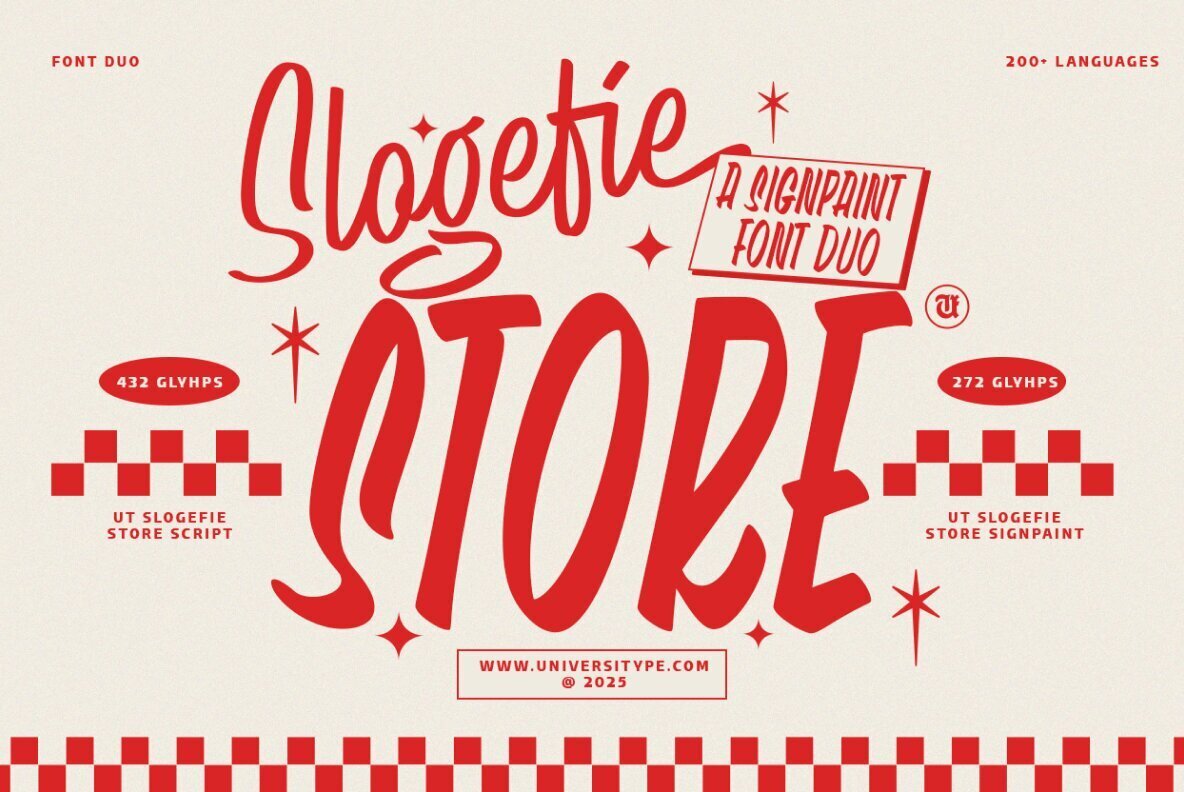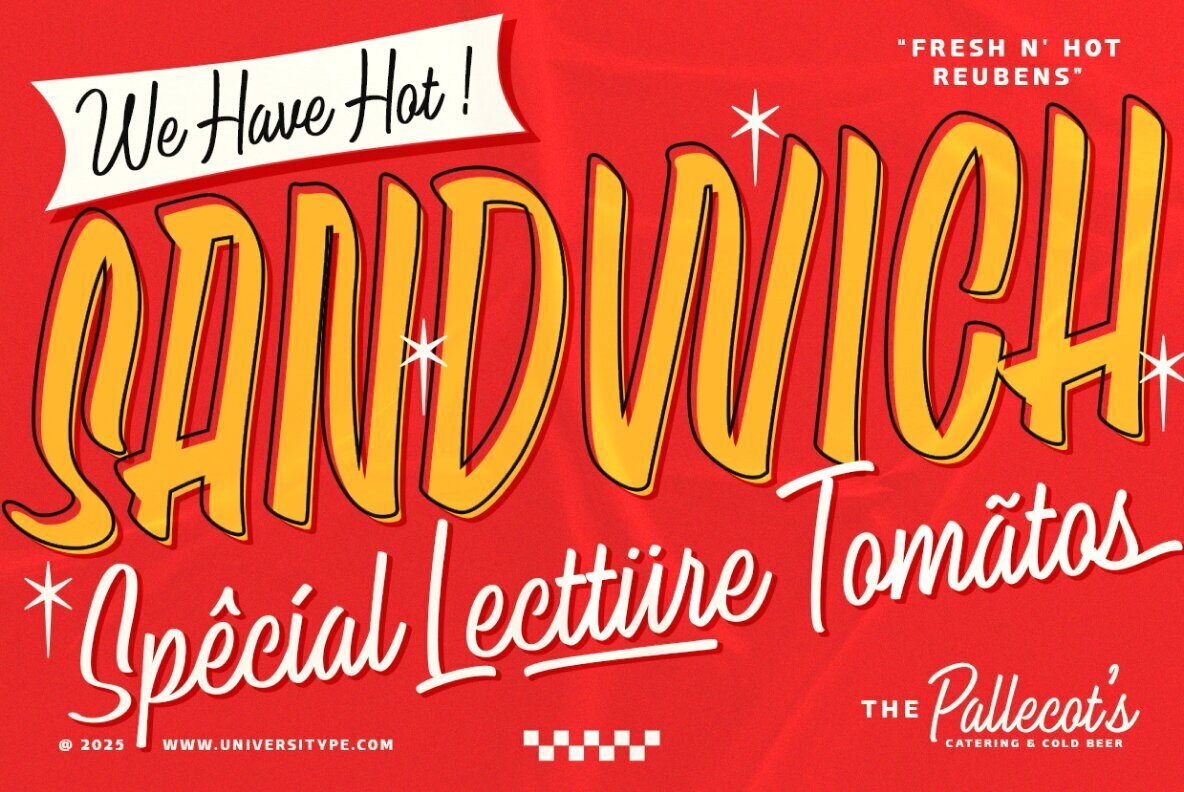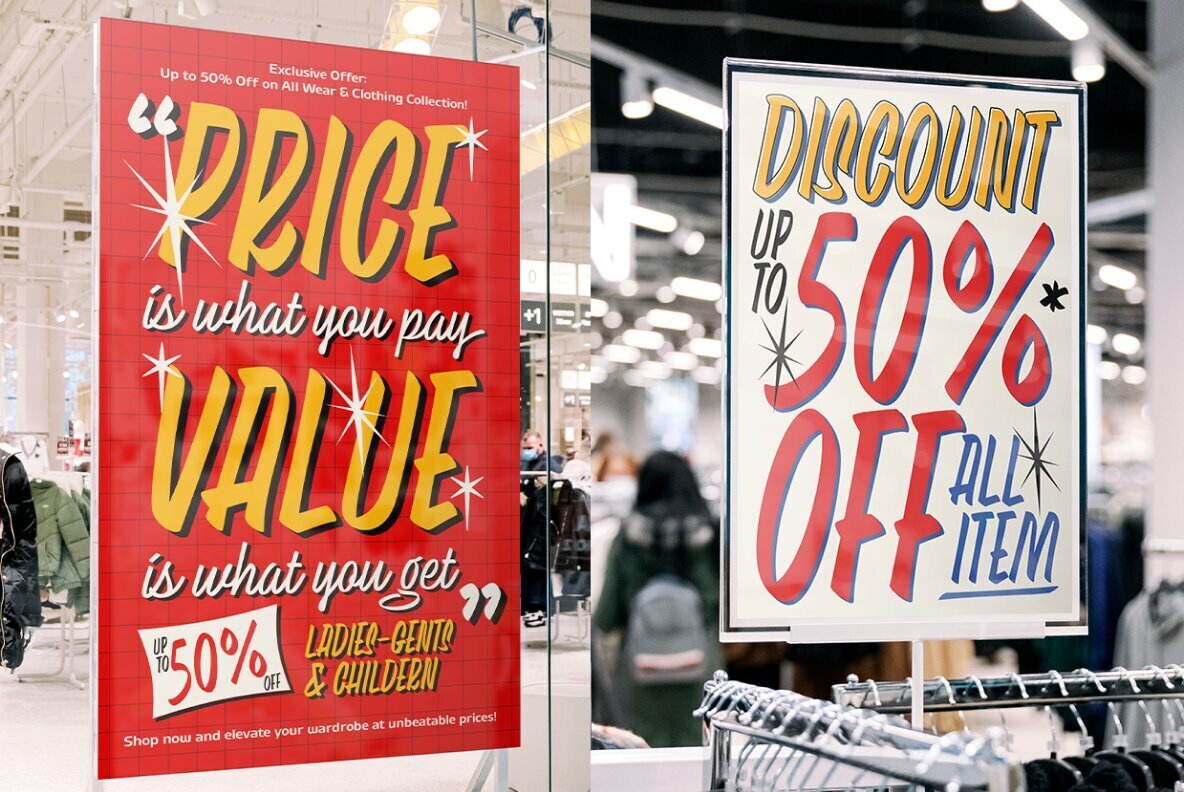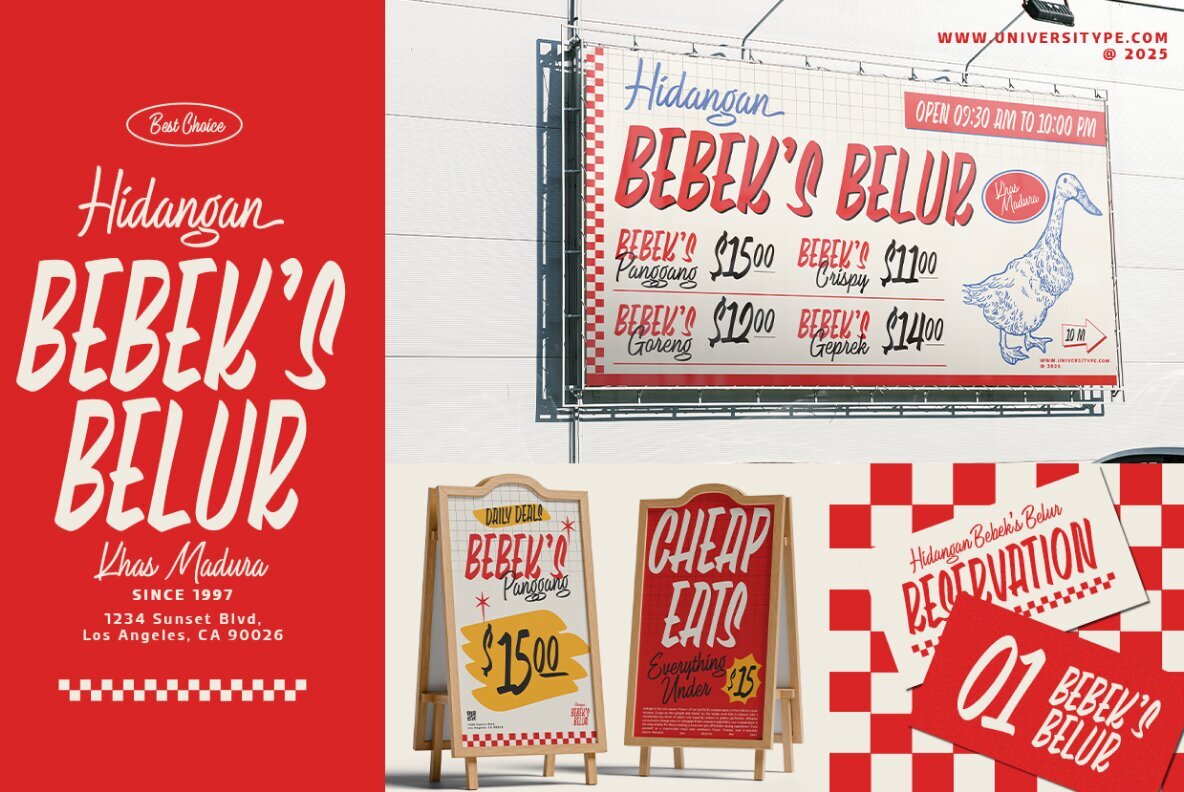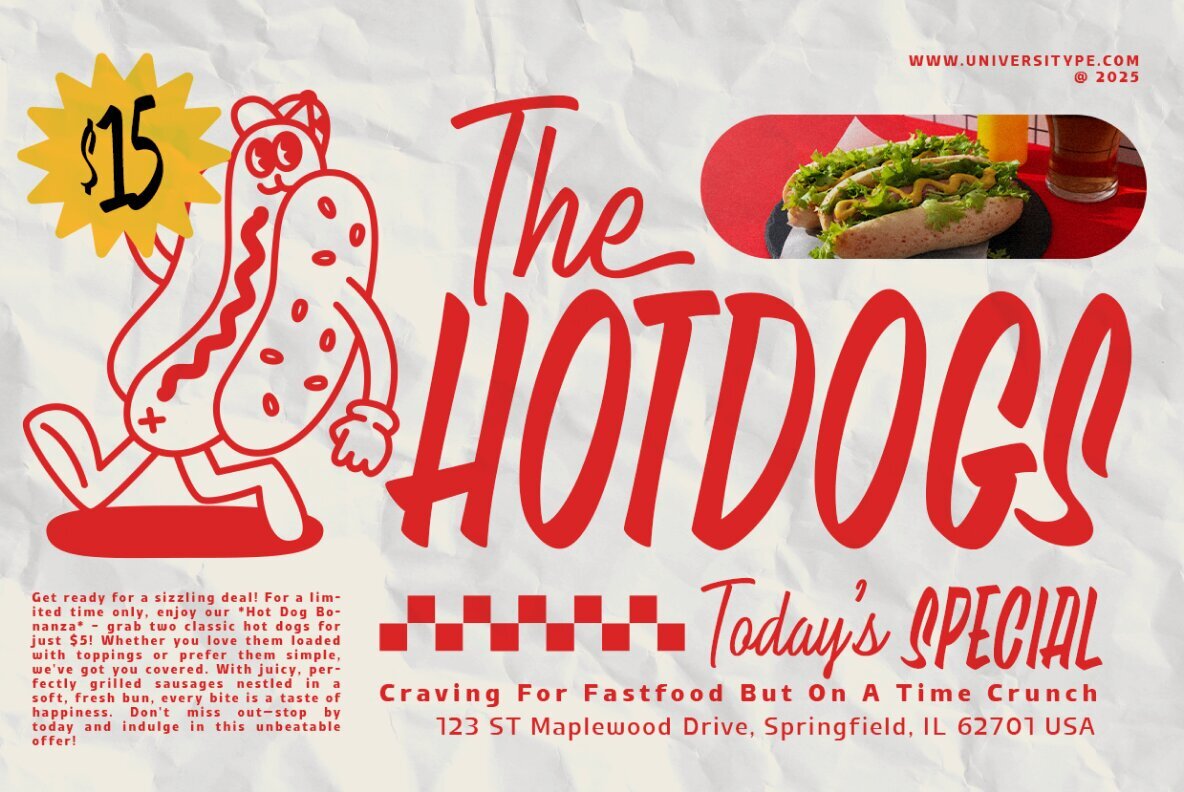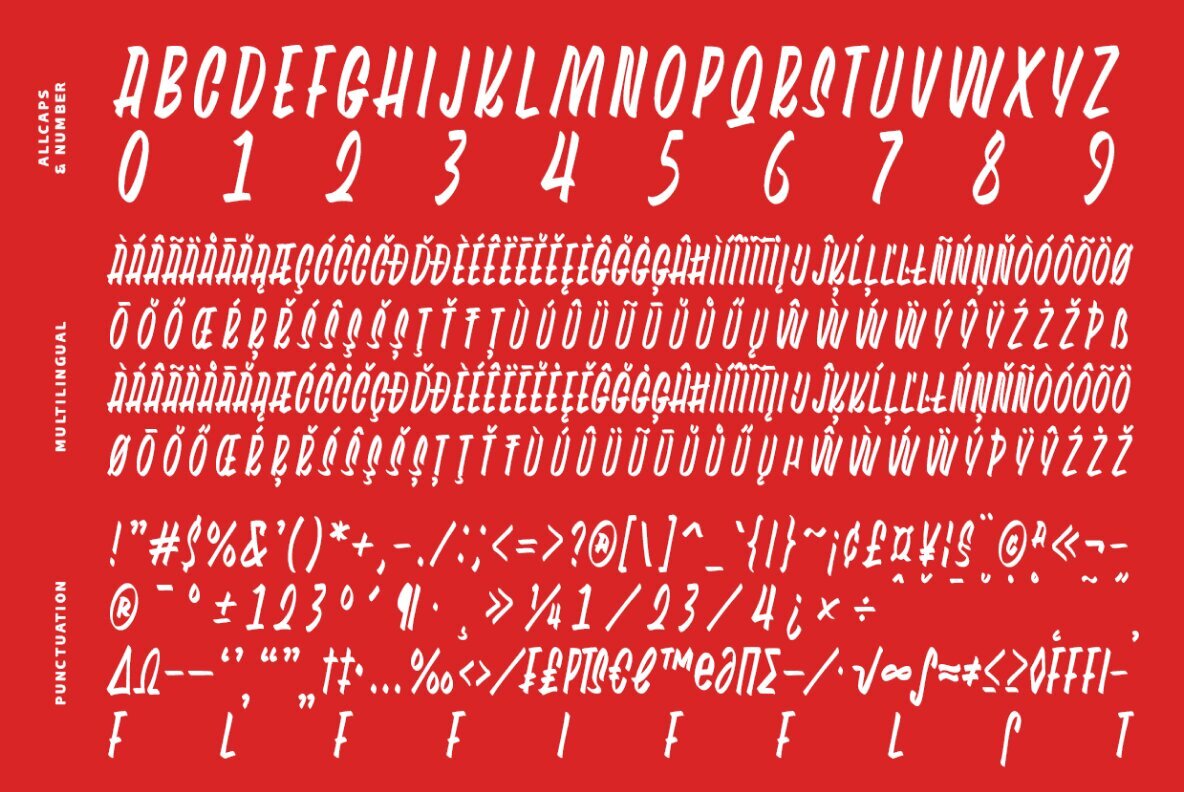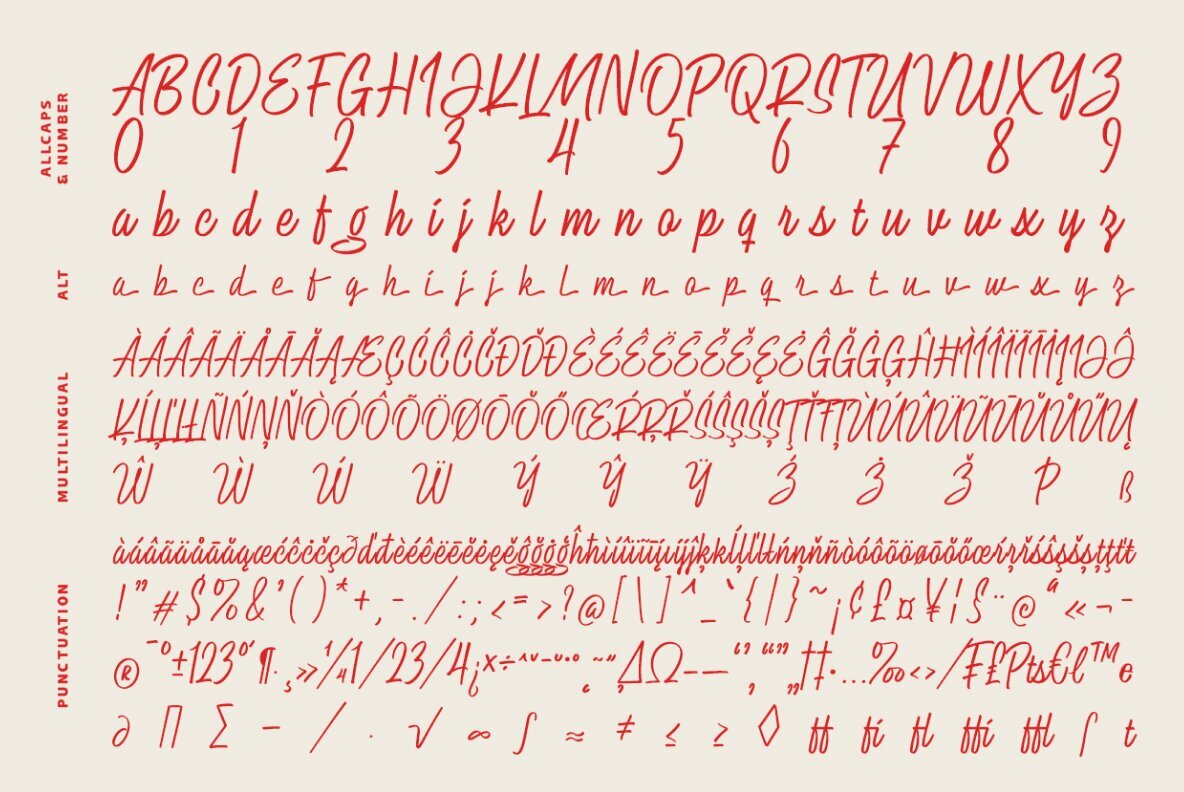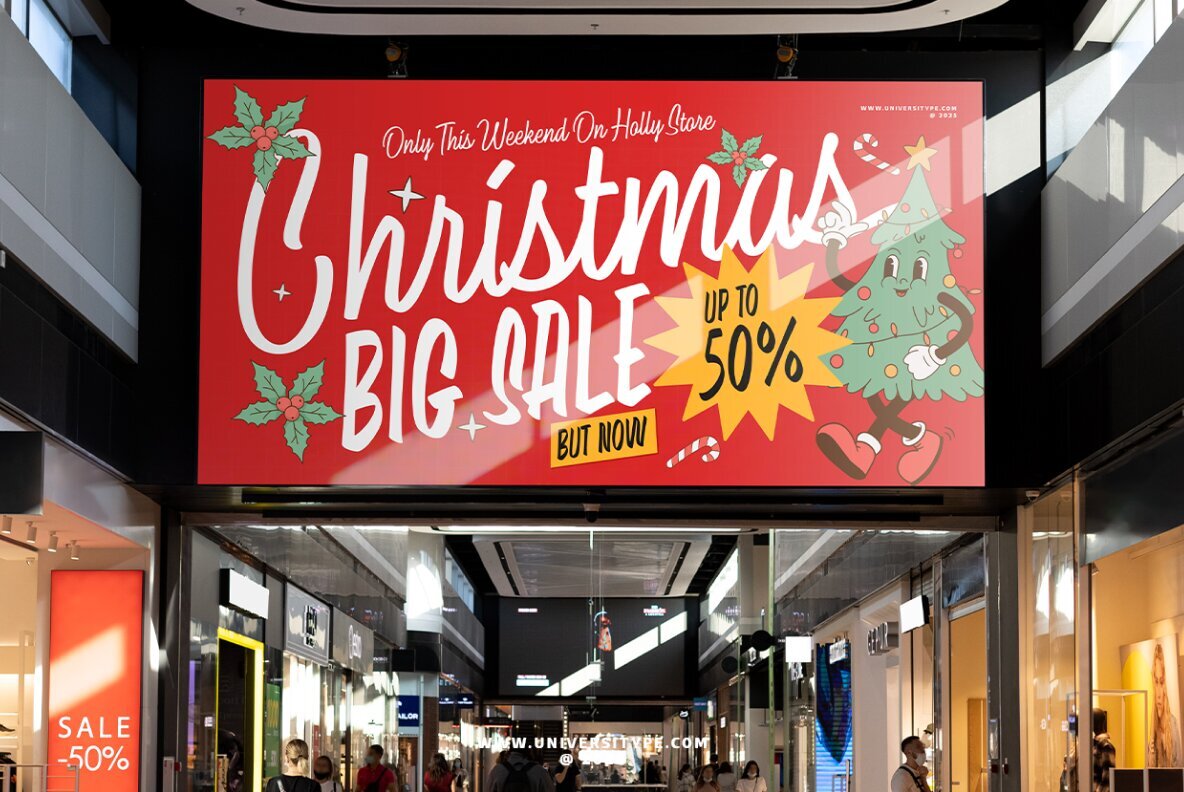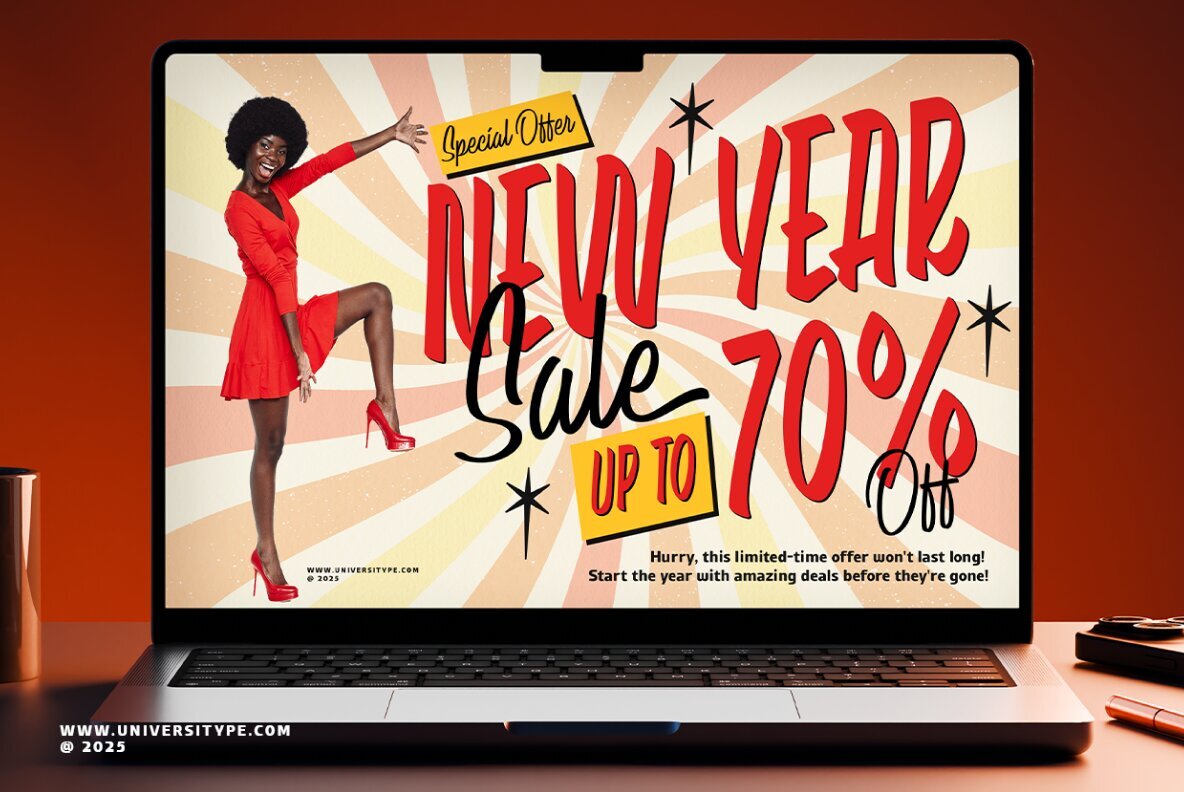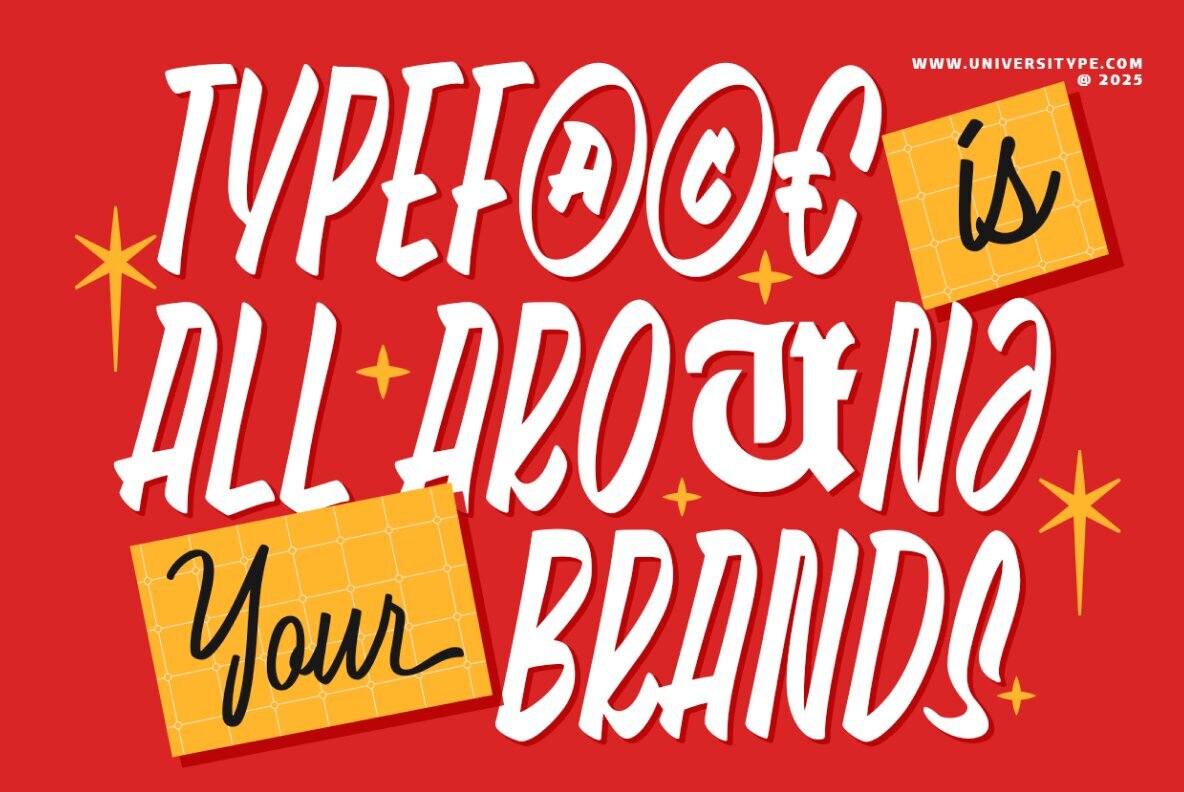
UT Slogefie Store Font
UT Slogefie Store Display
UT Slogefie Store Script
Introducing UT Slogefie Store, a vibrant and versatile font duo that combines the charm of script with the boldness of signpaint. Perfect for creating eye-catching designs that stand out, UT Slogefie is ideal for branding, advertising, and any creative project that requires a touch of flair and personality. Target Audience: This font is designed for graphic designers, branding agencies, marketing professionals, and anyone involved in creative projects that aim to capture attention and convey a sense of fun and energy. Key Features: Inspiration Behind the UT Slogefie Store Design : UT Slogefie draws inspiration from classic signage and hand-lettering techniques, infusing a modern twist to create a font that is both nostalgic and contemporary. The design aims to evoke the lively atmosphere of vintage storefronts and the personal touch of handcrafted art. Usage Suggestions: